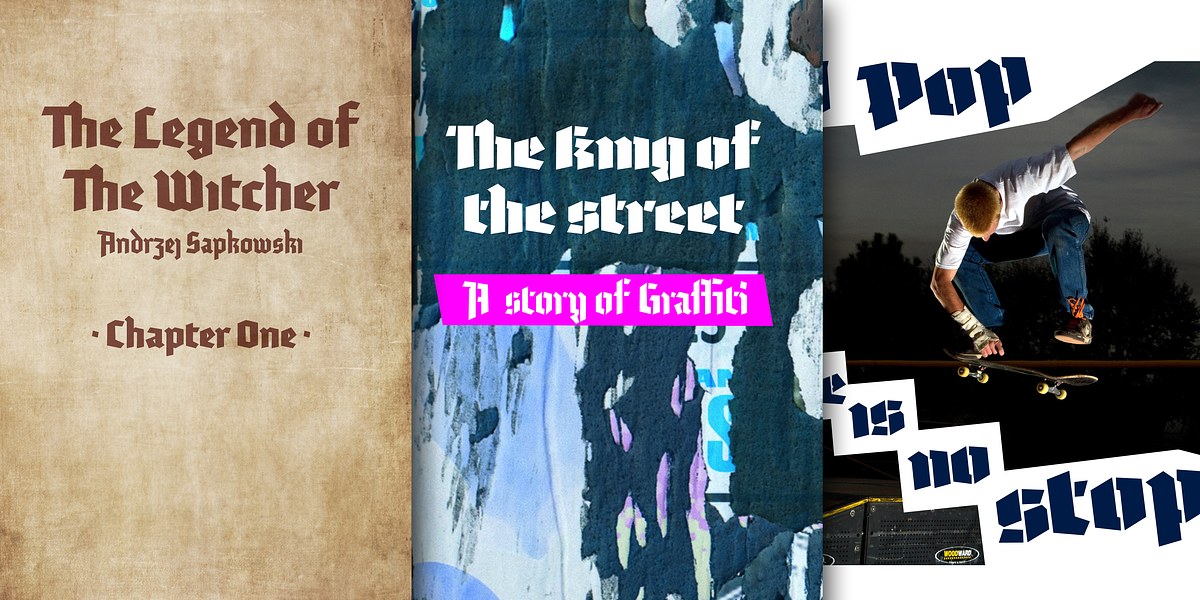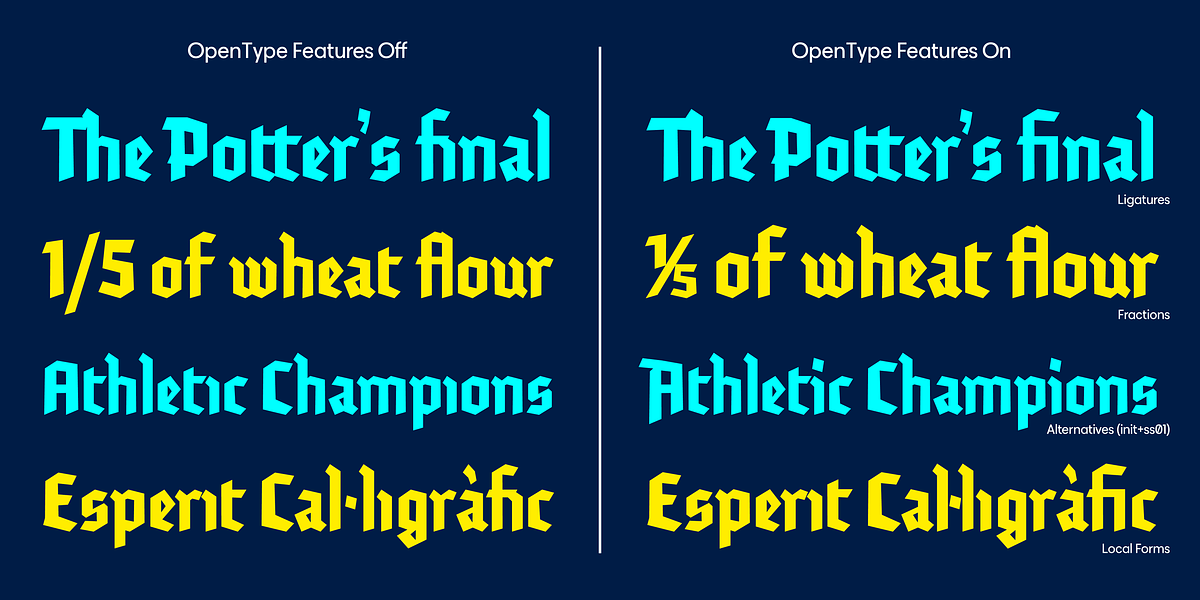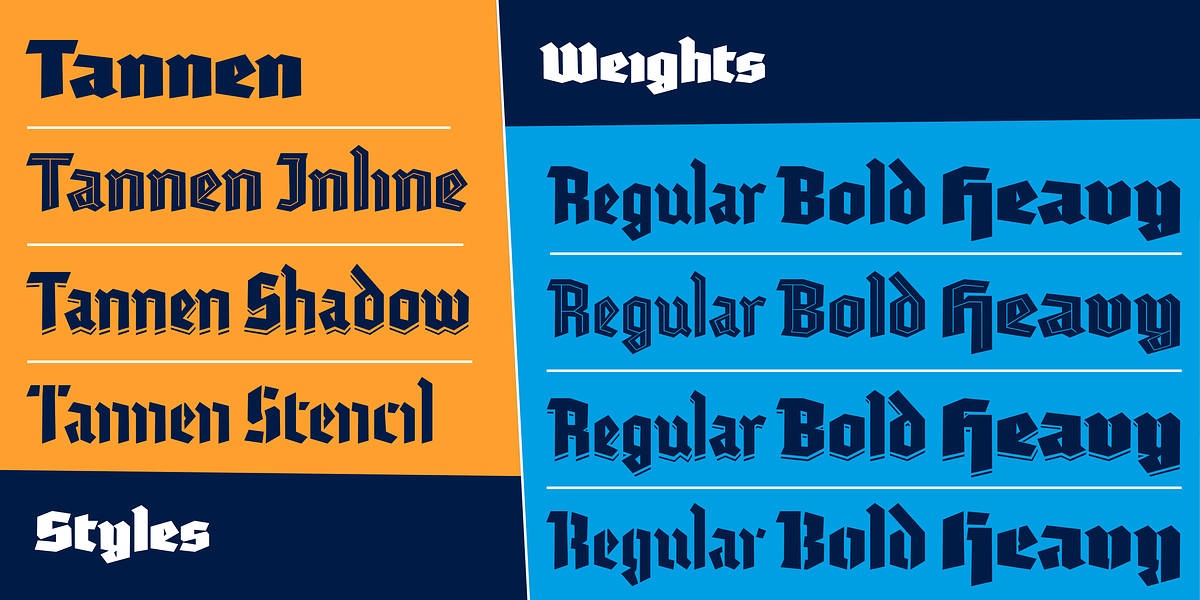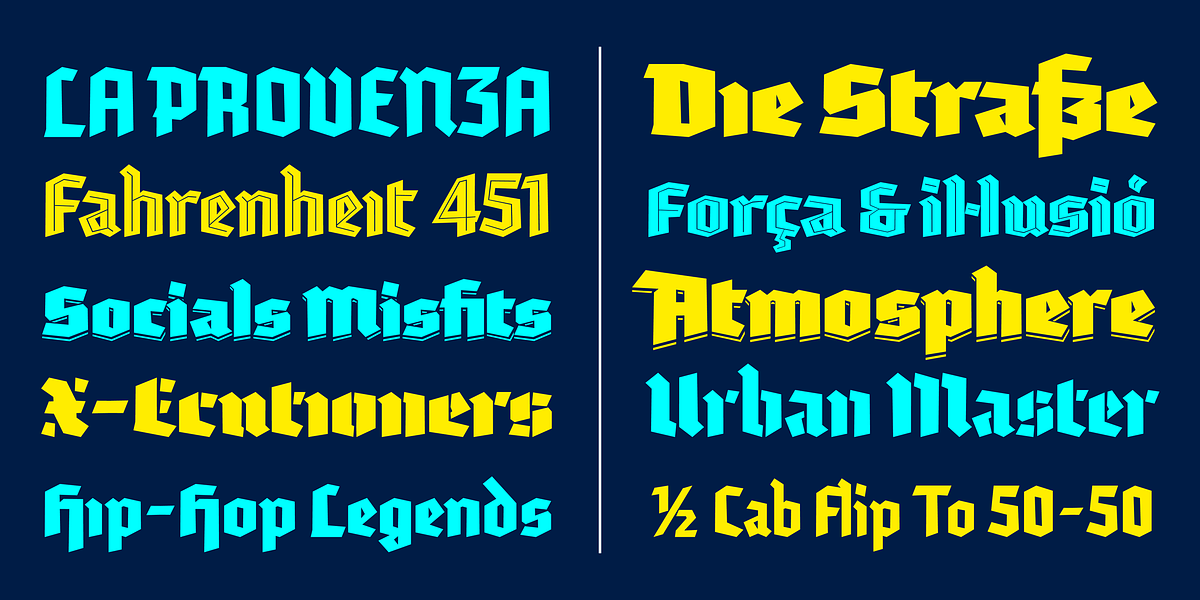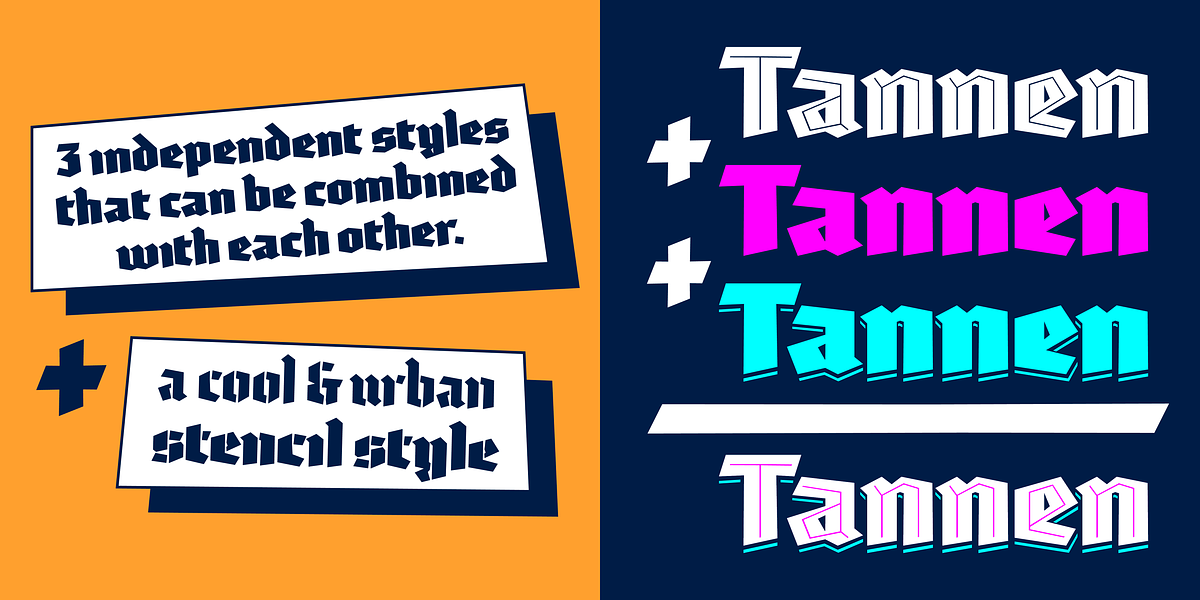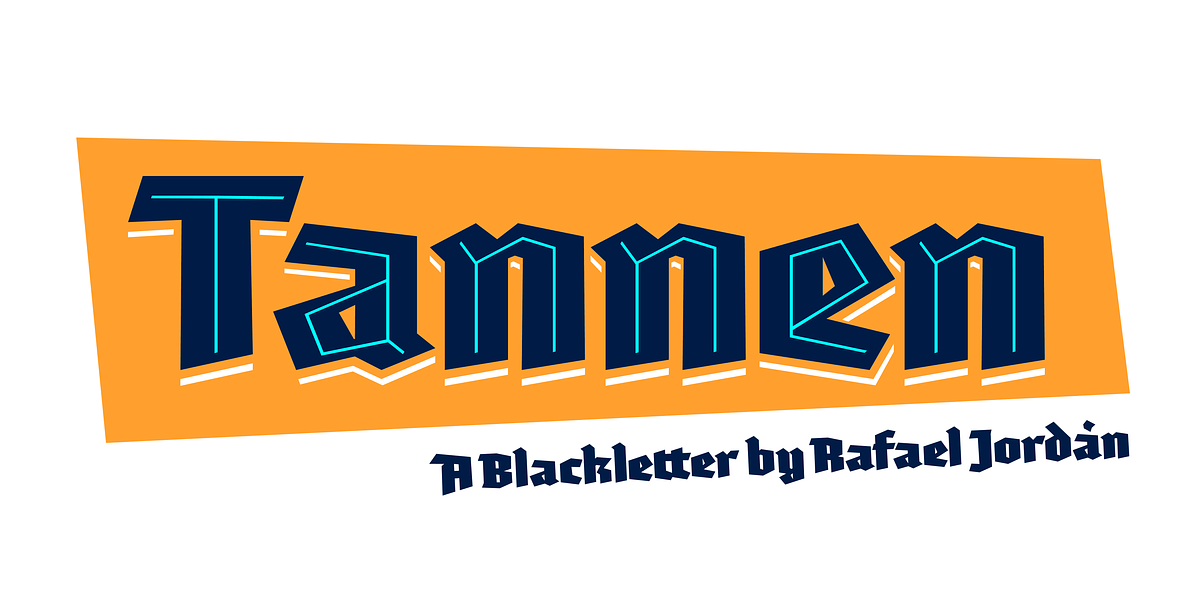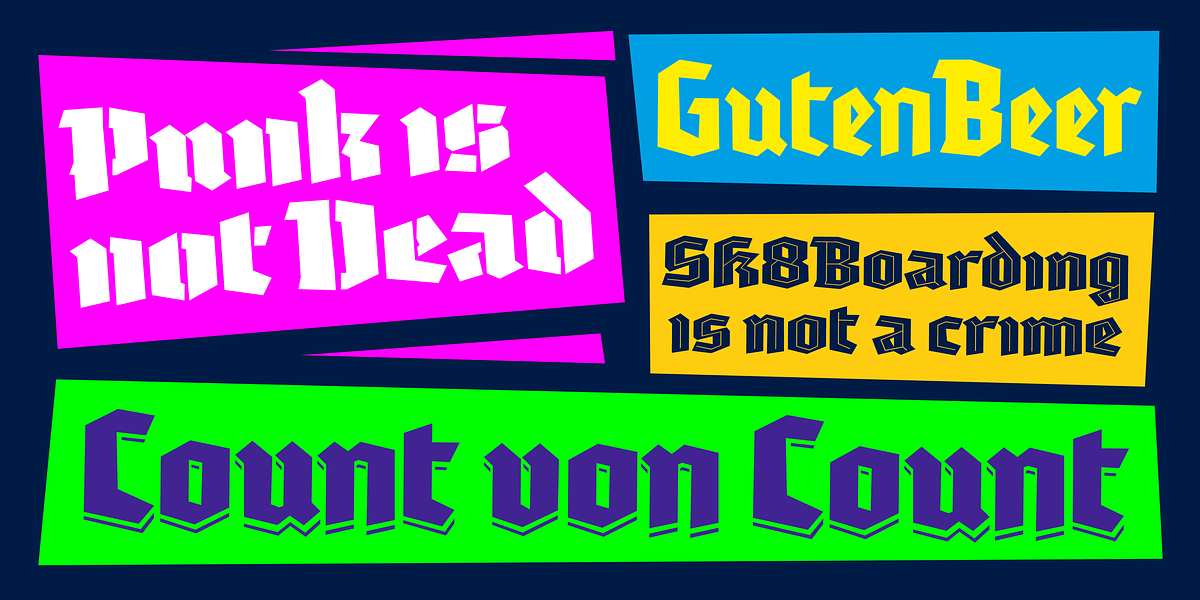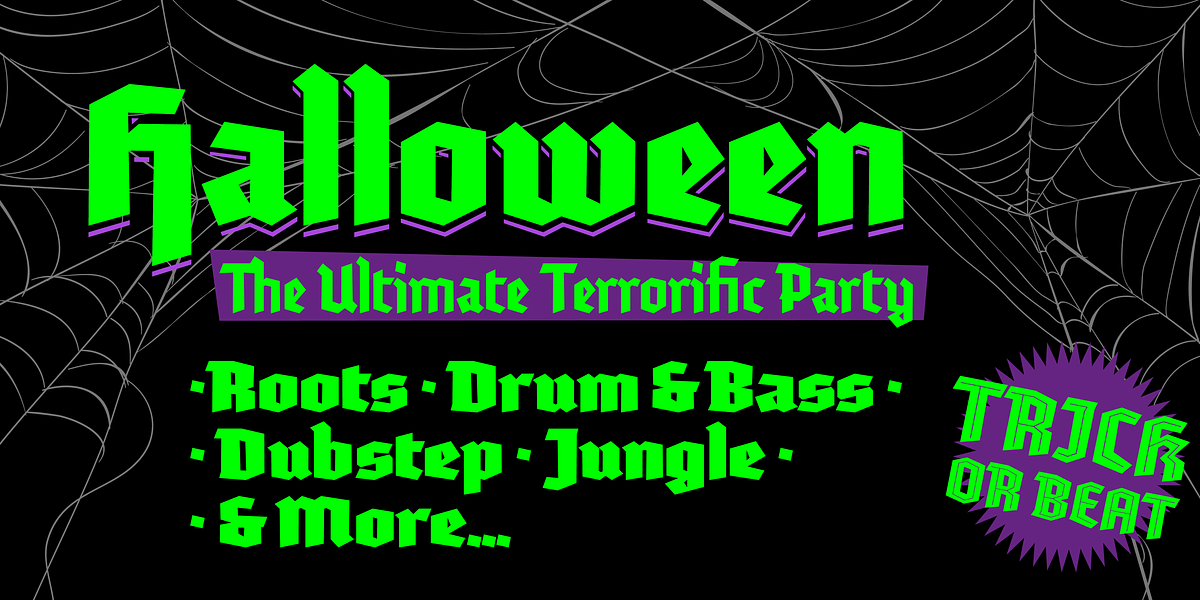
Tannen
Tannen is a modern interpretation of the classic blackletter typeface Tannenberg. It features a casual and fun aesthetic, achieved through its spurless design and the inclusion of unique styles like inline and shadowed versions. The font also includes a stencil style for added versatility. Tannen supports multiple weights per style and comes equipped with OpenType features such as ligatures and alternates, making it suitable for a wide range of applications.